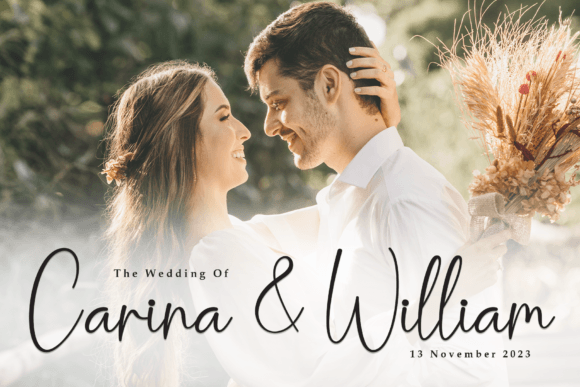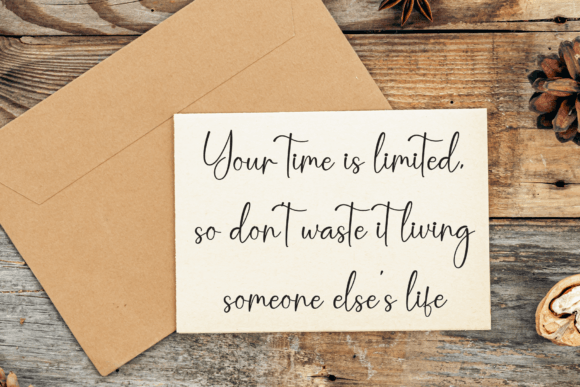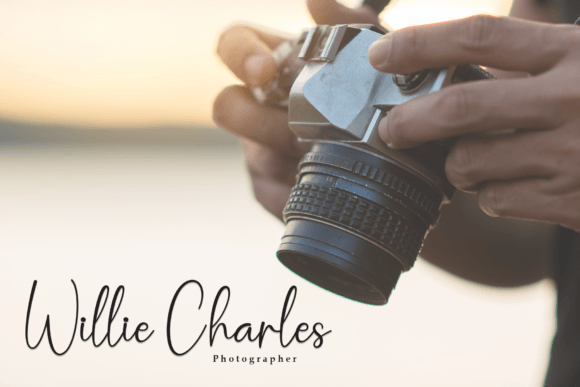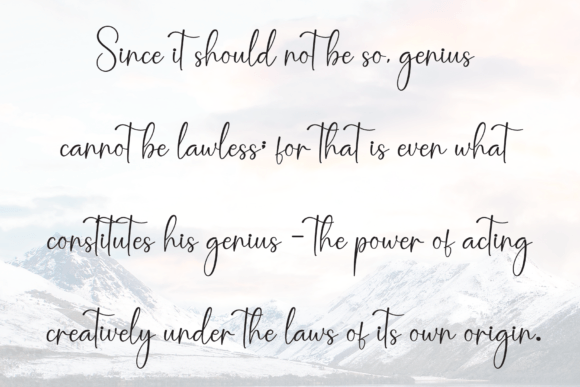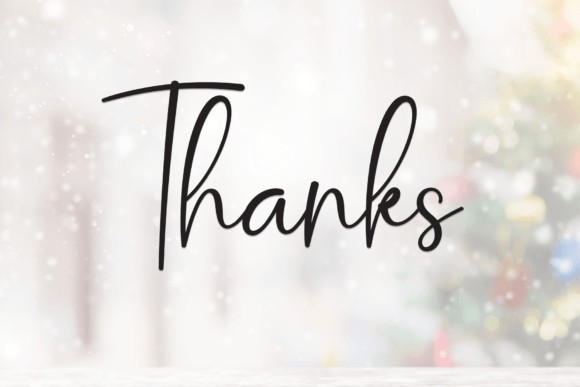
Introducing Christmas Wonderful Font: A Sweet and Friendly Handwritten Delight
Are you looking for a font that captures the essence of the holiday season? Look no further than Christmas Wonderful Font, a sweet and friendly handwritten font that’s perfect for a wide range of design projects. With its natural and unique style, Christmas Wonderful is incredibly versatile and can be used to create a variety of designs that are sure to delight.
As a designer or crafter, you’re always on the lookout for fonts that can help you create unique and eye-catching designs. Christmas Wonderful Font is a great addition to your font collection, with its whimsical and charming style that’s sure to add a touch of magic to your projects. Whether you’re creating holiday cards, gift tags, or social media graphics, Christmas Wonderful Font is the perfect choice.
What Makes Christmas Wonderful Font So Special?
So, what sets Christmas Wonderful Font apart from other fonts? Here are just a few things that make it so special:
- Natural and Unique Style: Christmas Wonderful Font has a natural, handwritten style that’s both unique and charming. Its imperfections and quirks make it feel like it was written by hand, adding a touch of personality to your designs.
- Versatility: This font is incredibly versatile and can be used for a wide range of design projects. Whether you’re creating holiday-themed designs or just want to add a touch of whimsy to your projects, Christmas Wonderful Font is a great choice.
- Easy to Read: Despite its playful style, Christmas Wonderful Font is easy to read, making it perfect for use in body text or for creating graphics that need to be easily readable.
Using Christmas Wonderful Font in Your Designs
So, how can you use Christmas Wonderful Font in your designs? Here are a few ideas to get you started:
- Holiday Cards and Invitations: Create beautiful holiday cards and invitations with Christmas Wonderful Font as the main attraction. Its whimsical style is perfect for the holiday season.
- Gift Tags and Labels: Add a touch of personality to your gift tags and labels with Christmas Wonderful Font. It’s a great way to make your gifts stand out.
- Social Media Graphics: Create eye-catching social media graphics with Christmas Wonderful Font. Its playful style is sure to grab attention and add a touch of holiday cheer to your social media feeds.
- Digital Papers and Scrapbooking: Use Christmas Wonderful Font to create digital papers and scrapbooking pages that are perfect for the holiday season.
Tips for Getting the Most Out of Christmas Wonderful Font
Here are a few tips for getting the most out of Christmas Wonderful Font:
- Experiment with Different Sizes and Colors: Don’t be afraid to experiment with different sizes and colors of Christmas Wonderful Font. Its versatility makes it easy to use in a variety of contexts.
- Pair it with Other Fonts: Christmas Wonderful Font pairs well with other fonts, so don’t be afraid to get creative and try out different font combinations.
- Use it to Add a Personal Touch: Use Christmas Wonderful Font to add a personal touch to your designs. Its whimsical style makes it perfect for creating unique and personalized designs.